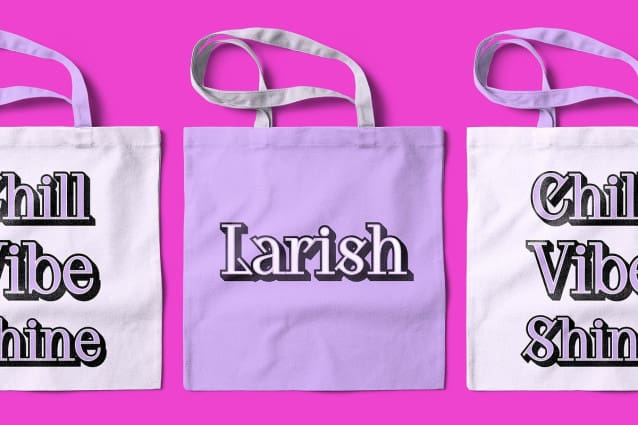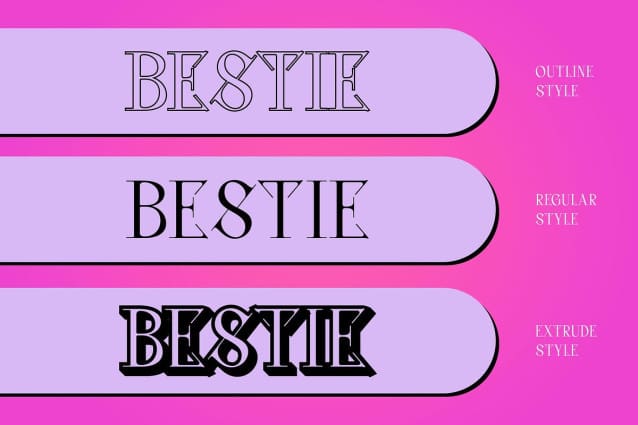
Chiston 3D Font
Chiston 3D Font is a striking modern serif font that artfully combines classic elegance with contemporary innovation. Its design features clean lines and sophisticated letterforms, characterized by balanced proportions and thoughtful details that enhance its overall appeal. This unique font stands as a testament to the timelessness of serif typography, reimagined for today’s design landscape.
Key Characteristics for Enhanced Visual Impact The standout feature of Chiston 3D is its captivating 3D effect, which adds depth and dimension to each letter. This effect not only enriches the visual experience but also creates a dynamic and engaging appearance that draws the viewer in. The seamless integration of traditional serif elements with modern styling makes Chiston 3D versatile and adaptable across various contexts.
Versatile Applications for Diverse Design Needs Chiston 3D is exceptionally well-suited for a wide range of design applications, including branding, advertising, and editorial design. Whether you’re crafting a luxurious brand identity, designing eye-catching promotional materials, or developing sophisticated editorial layouts, this font conveys a sense of professionalism and refinement. Its ability to enhance the visual narrative makes it an ideal choice for projects that require a strong, memorable presence.